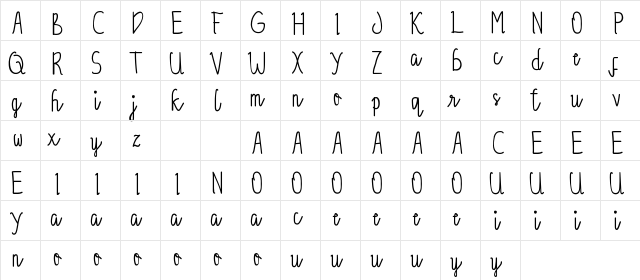
Gemintang Demo Regular
Design Context for Gemintang Demo Typeface
Gemintang Demo is a composed and adaptable typeface that performs quietly and consistently across a wide range of design contexts.